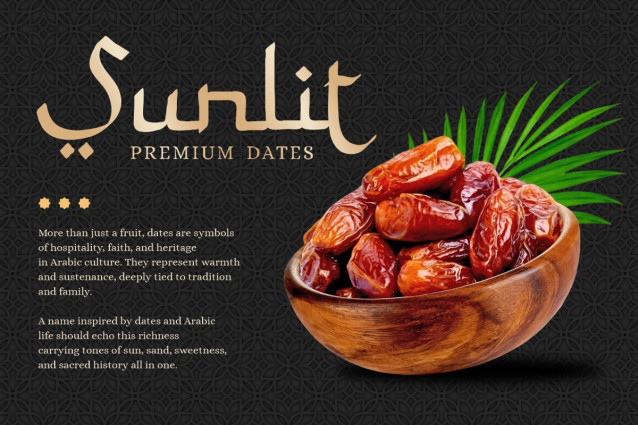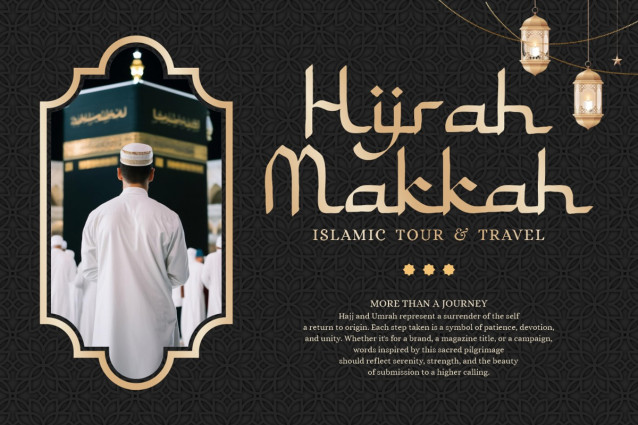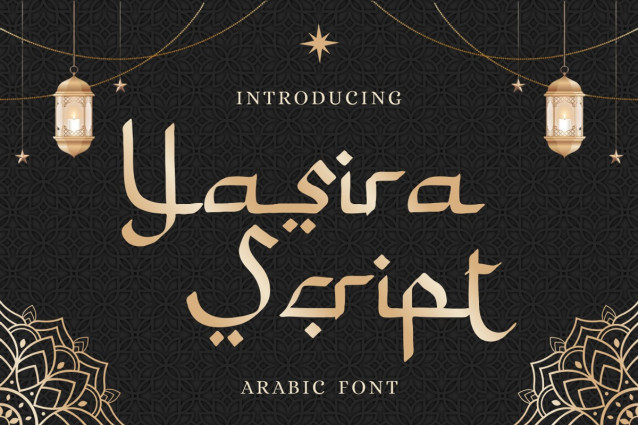
Yasira Script Font is a refined typeface that blends Arabic-inspired strokes with modern script styling. The letterforms are tall and slightly narrow, with medium thickness that creates balance between elegance and readability. Its unique curves and angular details add character, while subtle extensions on terminals give it a calligraphic impression. Designed with harmony and rhythm, this font captures the sophistication of traditional Arabic art combined with a fresh, contemporary feel. The overall shape conveys grace, making it suitable for both decorative and professional design projects.
Yasira Script Arabic Font is versatile and works beautifully across branding, packaging, posters, book covers, and event invitations. It is an excellent choice for Islamic-themed projects such as Eid greetings, business logos, and cultural campaigns. Its script-like structure makes headlines striking and memorable, while its balanced construction ensures readability in longer text. This font brings authenticity, sophistication, and cultural richness into every design. Designers who want to highlight tradition with a modern twist will find Yasira Script Arabic Font to be a perfect solution. Whether used in print or digital platforms, it ensures strong visual identity while carrying heritage in style.